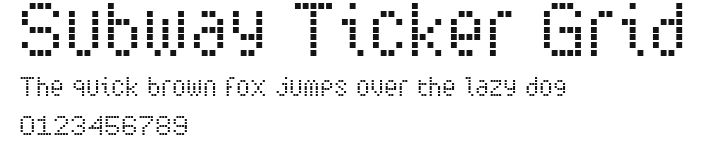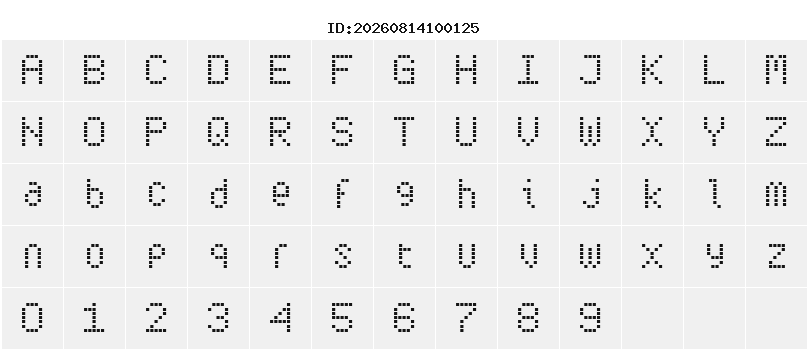
• Font Name: Subway Ticker Grid
• Description: Subway Ticker Grid by Keith Bates is based on an electronic display seen on a New York subway train in February 2005. K-Type © 2005, 2012